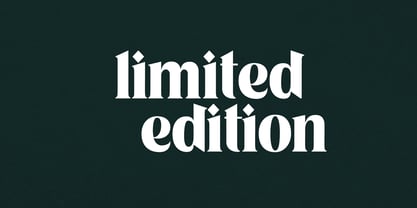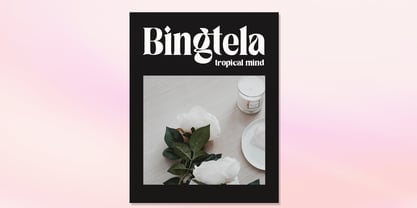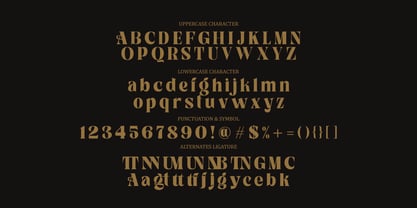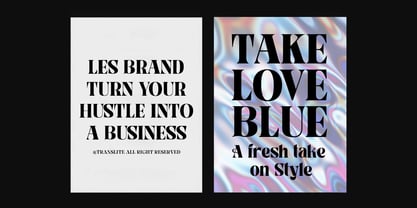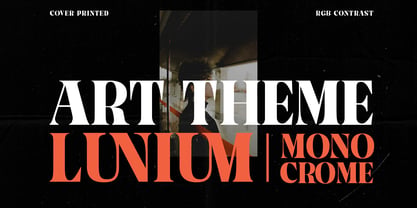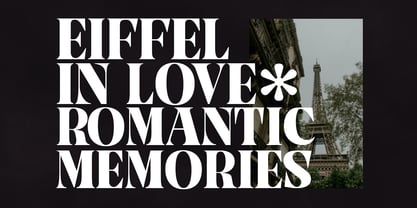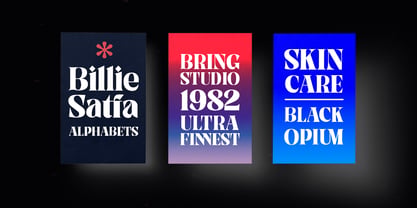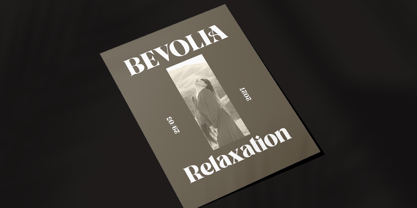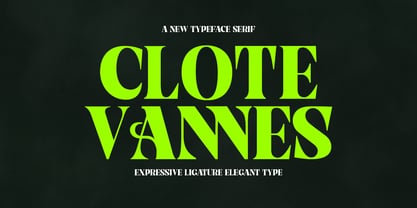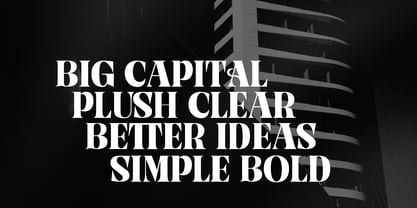
Clote Vannes
The Clote Vannes Font Family was designed by khaidir and published by Gatype. Clote Vannes contains 7 styles and family package options. More about this family
Introducing Clote Vannes, a display serif font with elegant and stylish curves. It's romantic, classy, ​​and modern all in one, and definitely a must-have in your font collection.
Clote Vannes is a quality font. This font is not only versatile but also the definition of elegance and class. It's a combination of luxury and high fashion, all rolled into one. Don't wait to add this luxurious font set to your collection and start designing now.
About Gatype
My name is Khaidir and the owner of the Gatype foundry. Founded on July 21 2021, Gatype is a font design studio based in Indonesia, where I am now pursuing my new passion completely from my studio. I draw letters and I love all forms of creativity. I love creating beautiful things and experimental typography and constantly learning new things. I created my first font in early 2021. I have since turned my freelance business into Type Foundry. Thank You. Khaidir